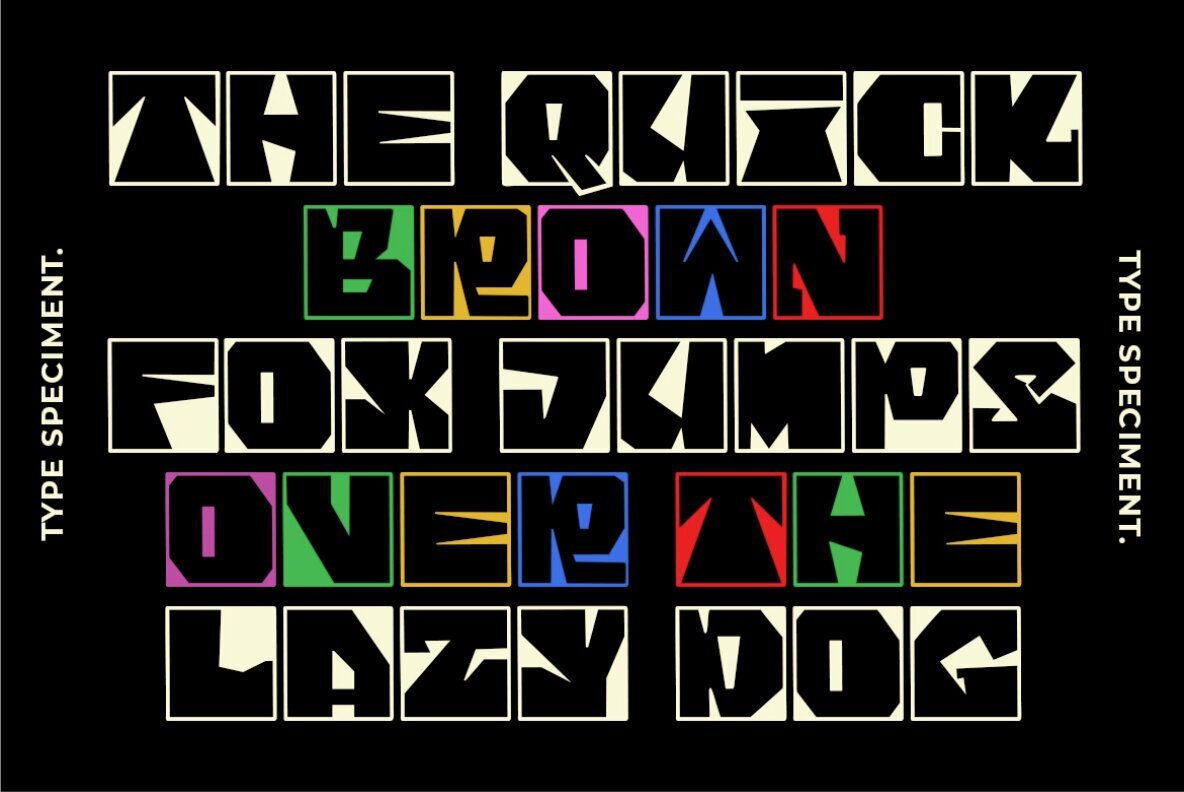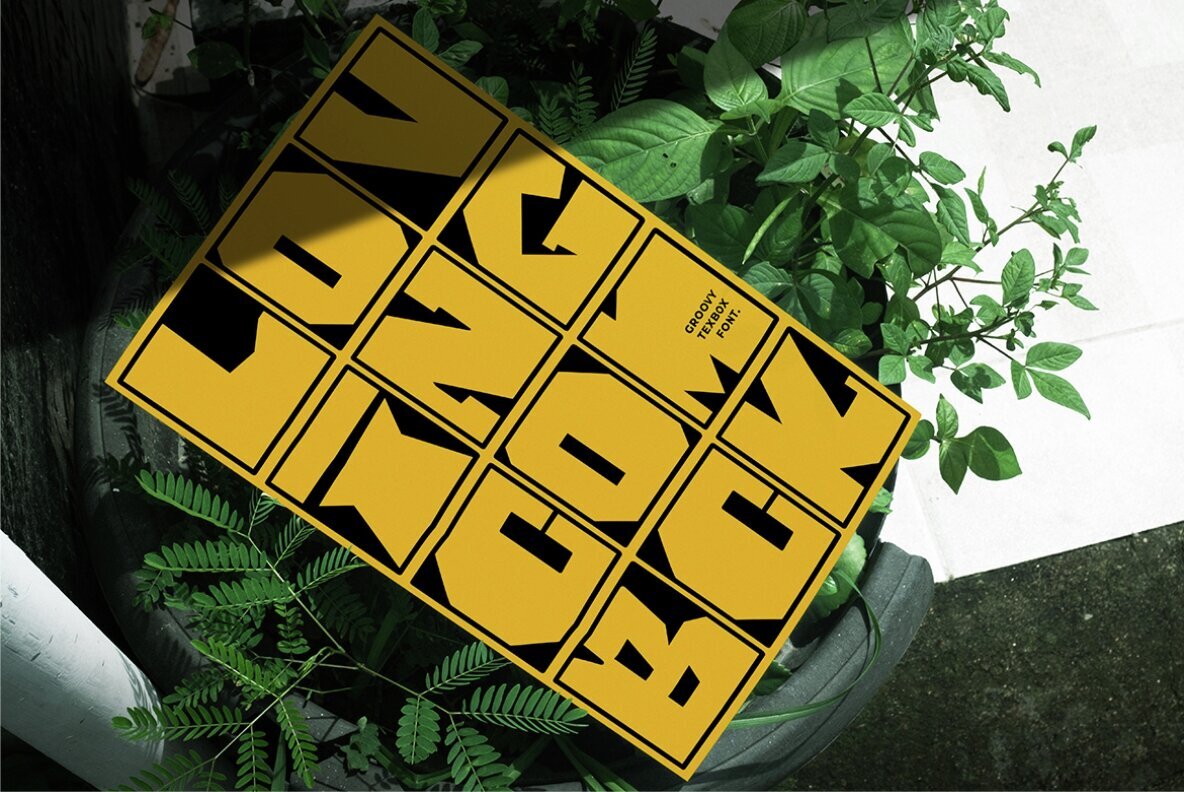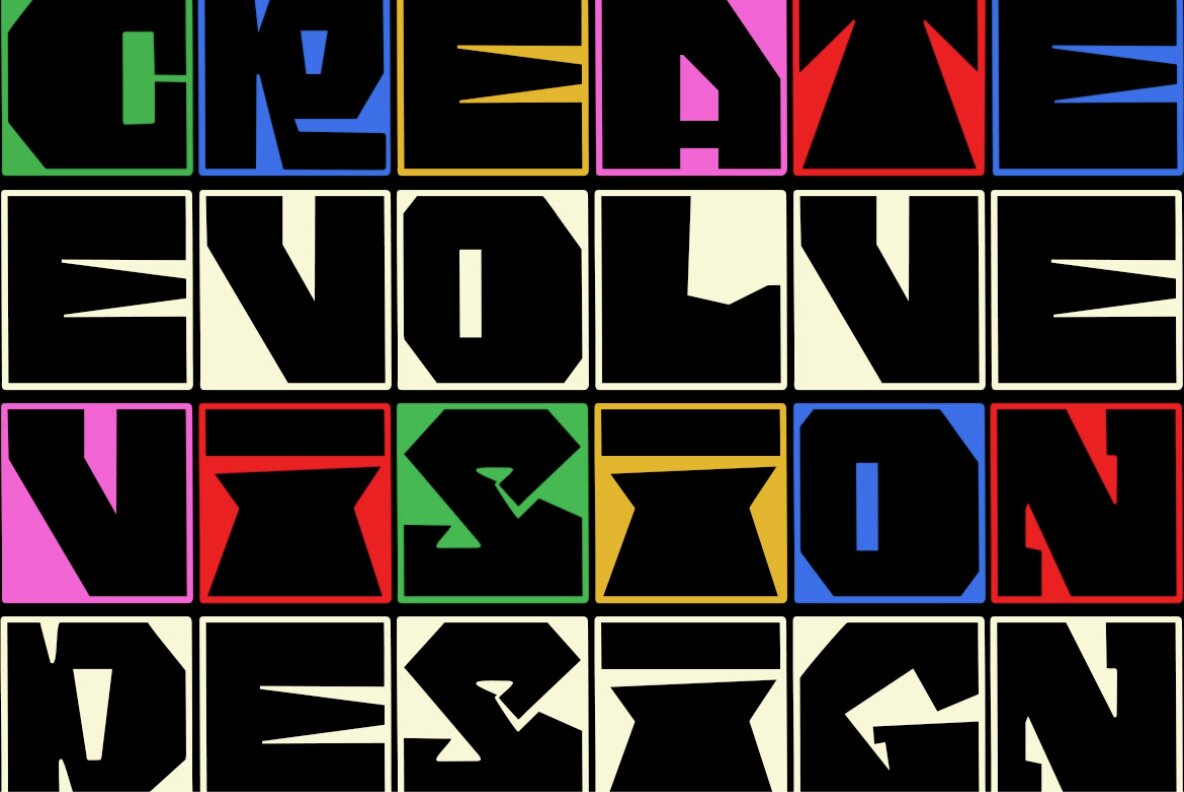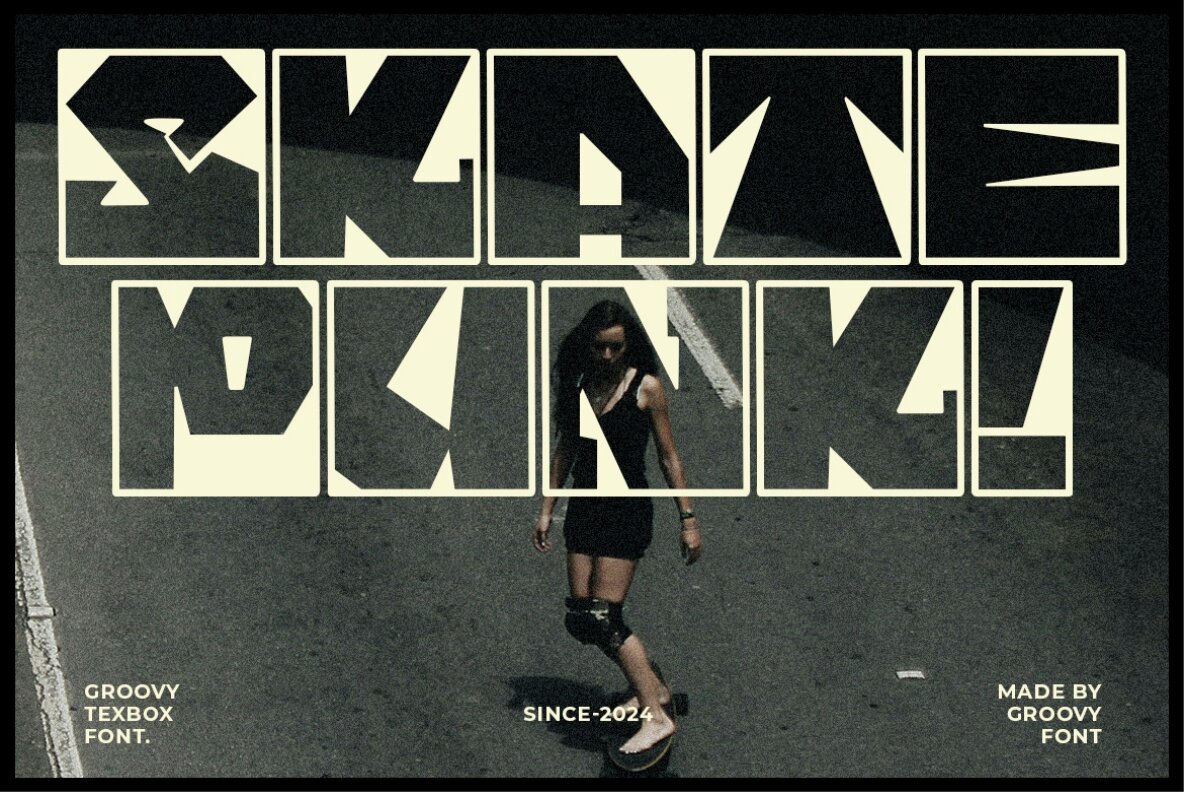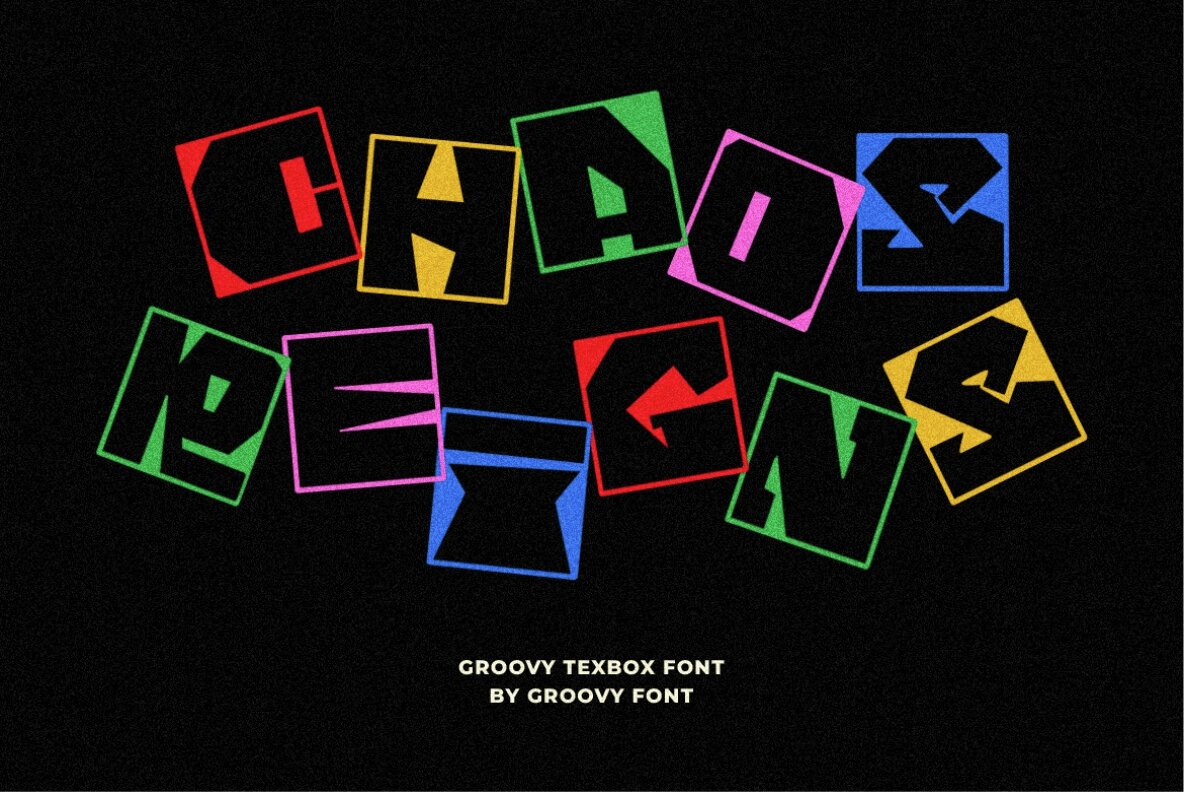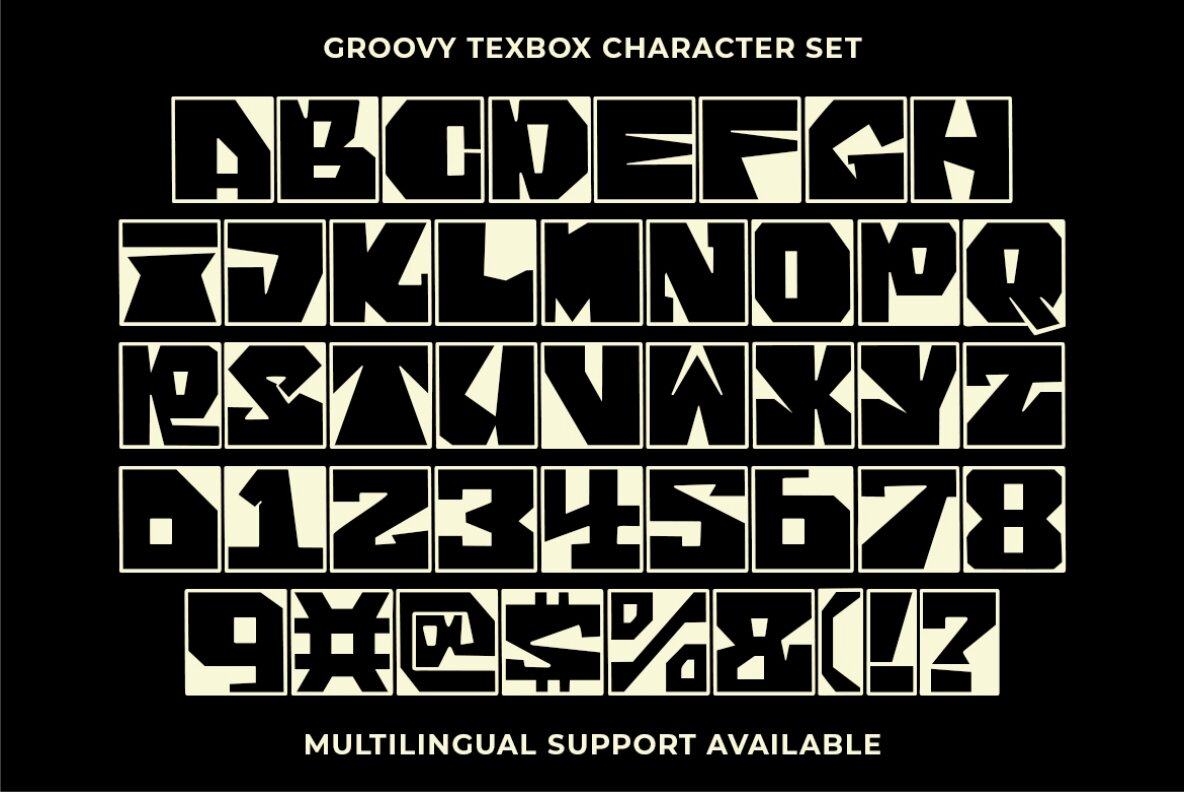
Groovy Texbox Font
Groovy Texbox
Groovy Texbox is a bold, blocky display font that embraces a distinct retro aesthetic. Each character is uniquely enclosed within a solid box, enhancing its eye-catching appeal and distinctive style. Ideal for designs that aim to stand out, Groovy Texbox is perfect for adding a bold and playful vintage vibe to posters, headlines, and more.
Whether you're crafting engaging visuals for promotions or designing standout content that captures the essence of retro charm, Groovy Texbox delivers versatility and character. Its unique design makes it an excellent choice for projects seeking to invoke nostalgia while maintaining a modern appeal. Bring your creative visions to life with the captivating style of Groovy Texbox.